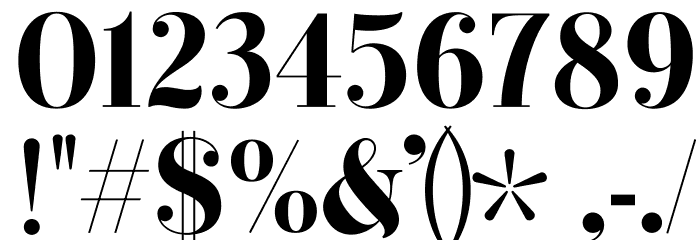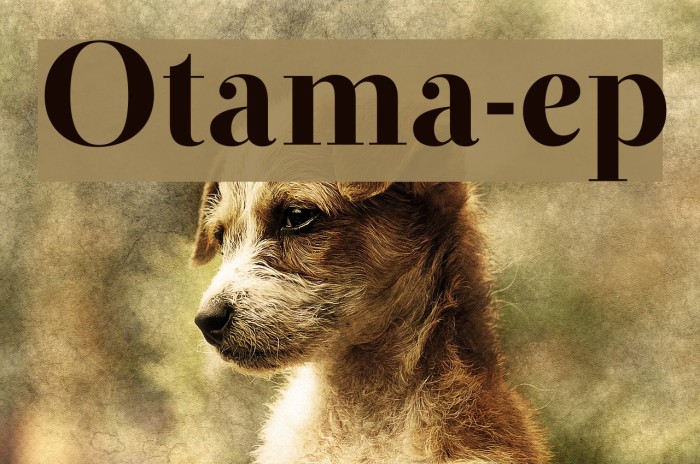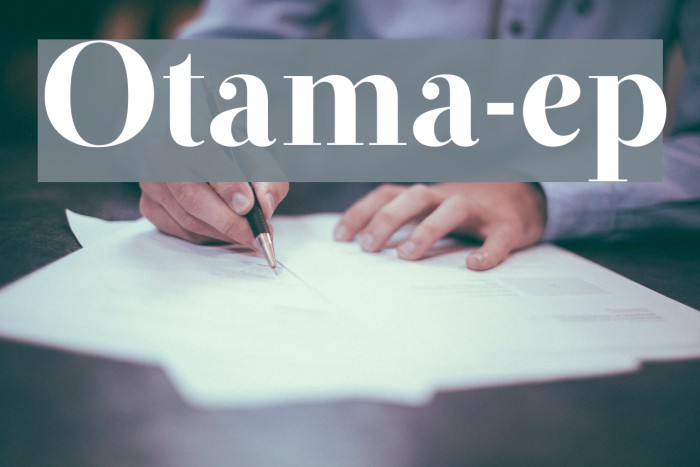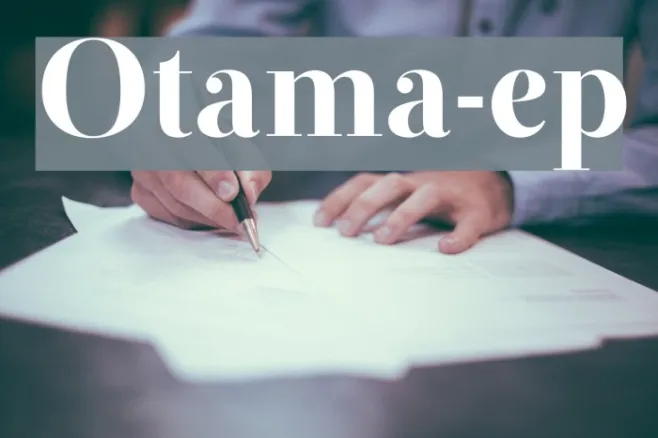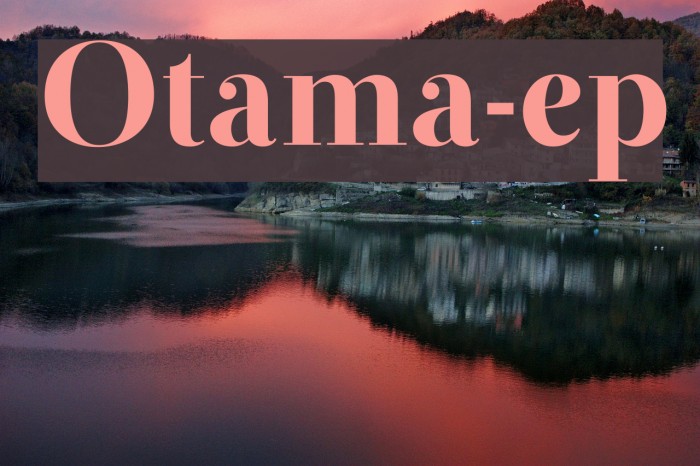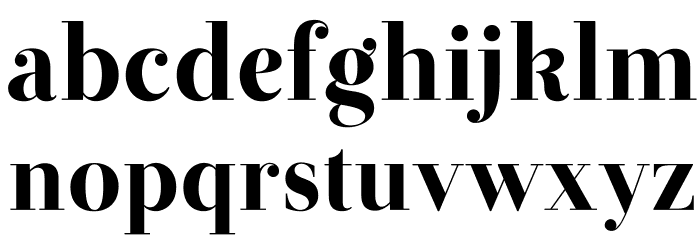
Otama-ep Font
This font features a classic serif style with elegant and refined strokes. The uppercase letters are bold and commanding, while the lowercase letters maintain a balanced and harmonious appearance. The numerals are distinct and easily readable, making them suitable for various applications. The special characters are well-designed, adding versatility to the font's use. Overall, the font exudes a timeless and sophisticated charm, ideal for projects that require a touch of elegance and tradition.
A classic serif font with elegant strokes and a timeless charm.
• Proposed Projects: Ideal for editorial design, book covers, formal invitations, and branding projects that require a sophisticated and traditional look.
• Overall Style: Classic
• Use Case: Headlines, Body text, Logos